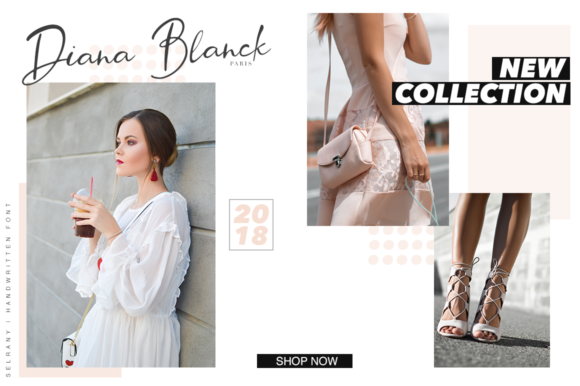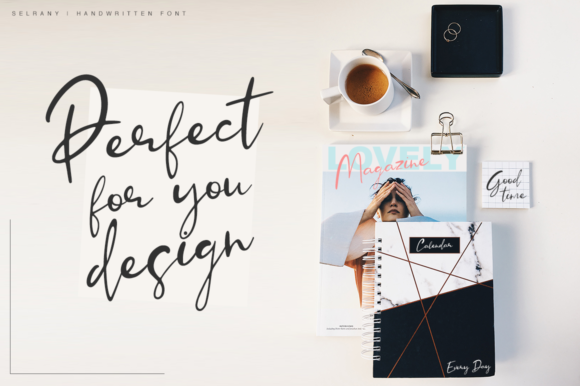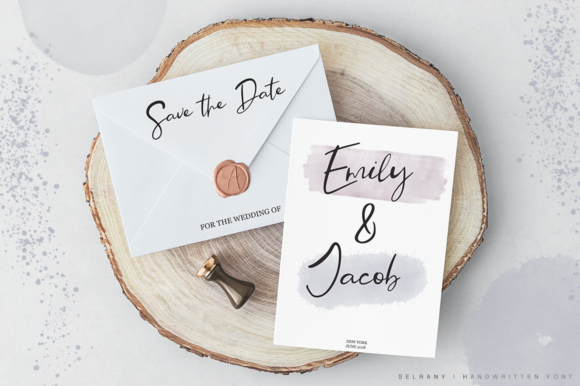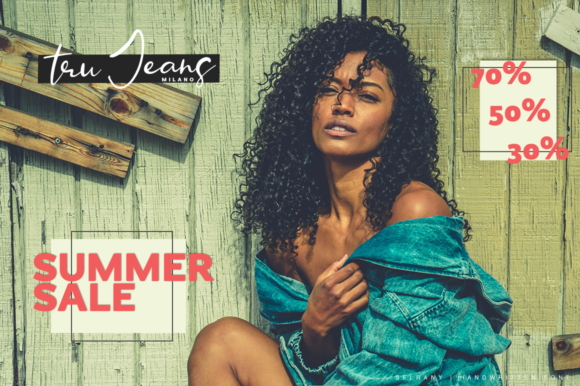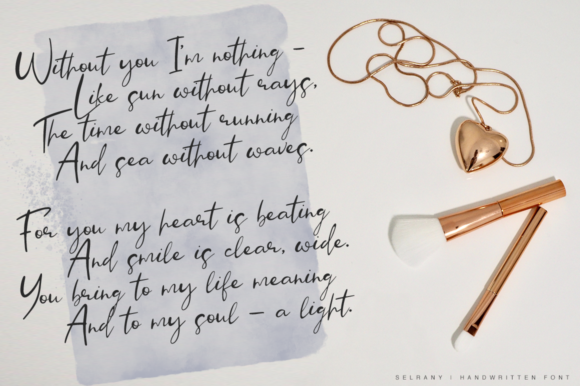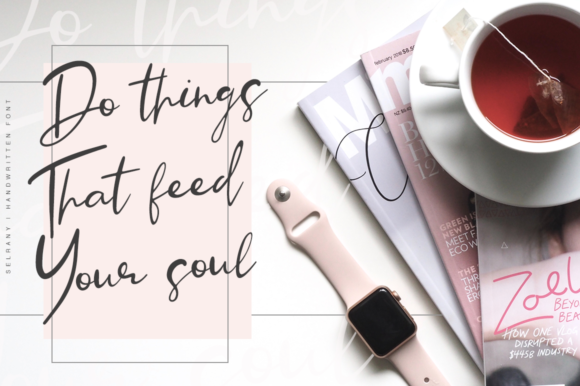
Selrany Font
About Selrany Font
Selrany is a fresh, summery calligraphy font that can add tons of style to your work! This font excels as a signature to your works – including logotype – and pairs stunningly with high contrast serifs and sans serif fonts alike.